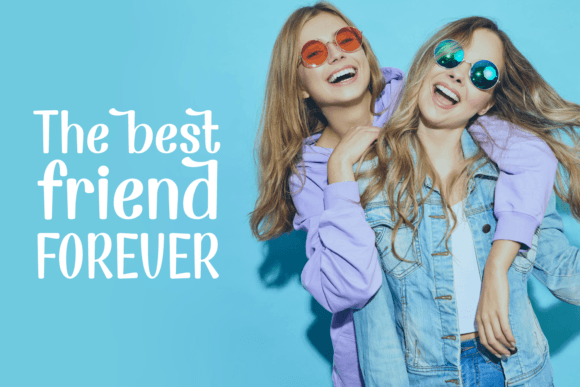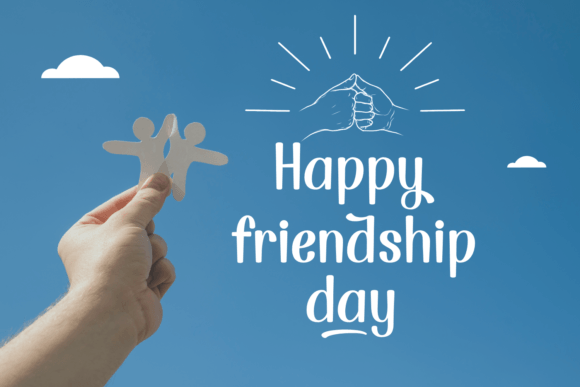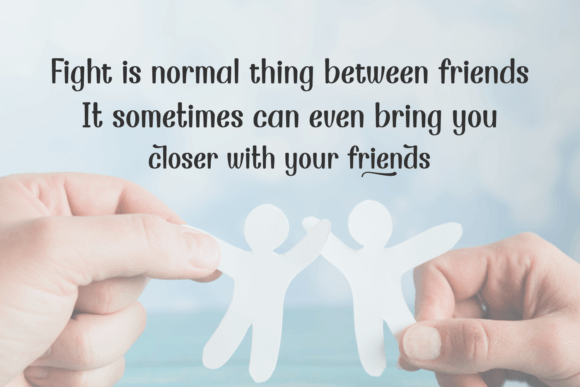
Fighting Friends Font: A Playful and Versatile Sans Serif Font
Are you tired of using the same old fonts for your creative projects? Look no further than the Fighting Friends font, a lively and charming sans serif font that’s sure to capture your heart. With its cute and playful elements, this font is perfect for designers and crafters looking to add a touch of personality to their work.
What Makes Fighting Friends Font So Special?
Fighting Friends font is a versatile sans serif font that’s designed to bring your creative ideas to life. Its playful and lively look makes it perfect for a wide range of projects, from branding and advertising to packaging and digital media. The font’s charming elements, including glyphs and swashes, can be easily accessed thanks to its PUA encoding.
Key Features of Fighting Friends Font
- Versatile sans serif font: Fighting Friends font is a highly versatile font that can be used for a wide range of projects, from formal to informal.
- Lively and playful look: The font’s lively and playful look makes it perfect for adding a touch of personality to your work.
- Cute and charming elements: The font’s cute and charming elements, including glyphs and swashes, make it perfect for designers and crafters looking to add a touch of whimsy to their work.
- PUA encoded: The font’s PUA encoding makes it easy to access all the glyphs and swashes, allowing you to get creative with your designs.
How to Use Fighting Friends Font
Fighting Friends font is easy to use and can be applied to a wide range of projects. Here are a few ideas to get you started:
- Branding and advertising: Use Fighting Friends font to create eye-catching logos, posters, and advertisements that showcase your brand’s personality.
- Packaging design: Add a touch of whimsy to your packaging designs with Fighting Friends font, perfect for products aimed at a younger audience.
- Digital media: Use Fighting Friends font to create engaging social media graphics, blog posts, and website content that stands out from the crowd.
- Crafting and DIY projects: Fighting Friends font is perfect for crafters and DIY enthusiasts looking to add a personal touch to their projects, from handmade cards to scrapbooking.
Why Designers and Crafters Love Fighting Friends Font
Fighting Friends font has quickly become a favorite among designers and crafters, and for good reason. Here are a few reasons why:
- Unique and eye-catching: The font’s playful and lively look makes it perfect for designers and crafters looking to create unique and eye-catching designs.
- Easy to use: The font’s PUA encoding makes it easy to access all the glyphs and swashes, allowing designers and crafters to get creative with their designs.
- Versatile: Fighting Friends font can be used for a wide range of projects, making it a valuable addition to any designer’s or crafter’s toolkit.
In conclusion, Fighting Friends font is a versatile and playful sans serif font that’s perfect for designers and crafters looking to add a touch of personality to their work. With its cute and charming elements, PUA encoding, and ease of use, this font is sure to become a favorite among creatives. So why not give it a try and see how it can bring your creative ideas to life?